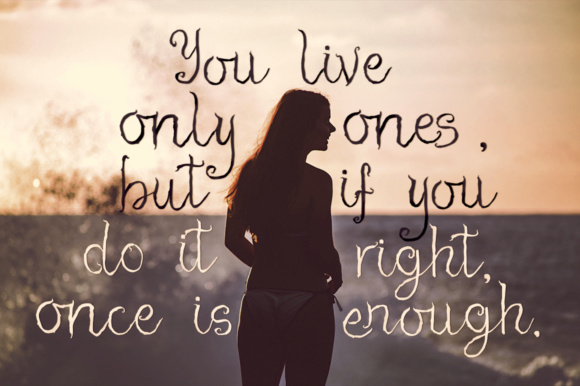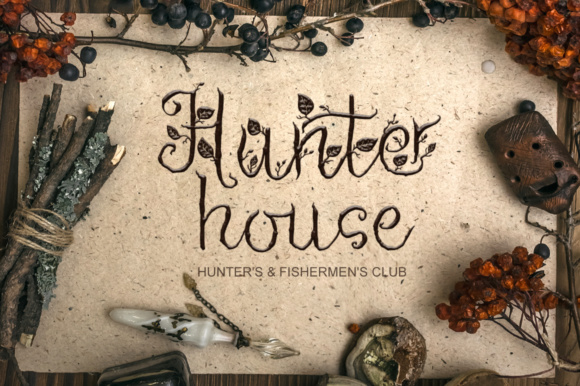
Cheshire Font
db-ku.com - Script & Handwritten -- Cheshire is a beautiful script font with a hand drawn texture, lots of ligatures and 3 alternate sets for the whole alphabet. It was created for beautiful typographic projects, greeting cards, t-shirts, posters, mugs, branding materials, photography overlays and so much more!